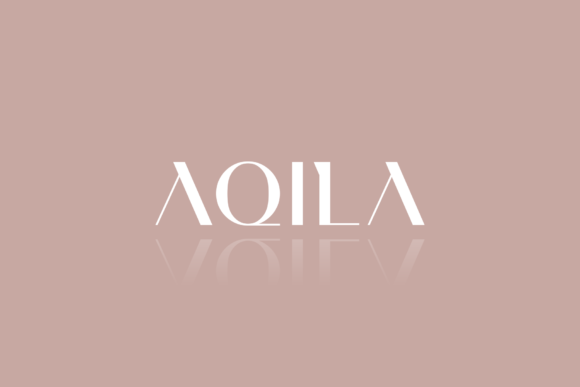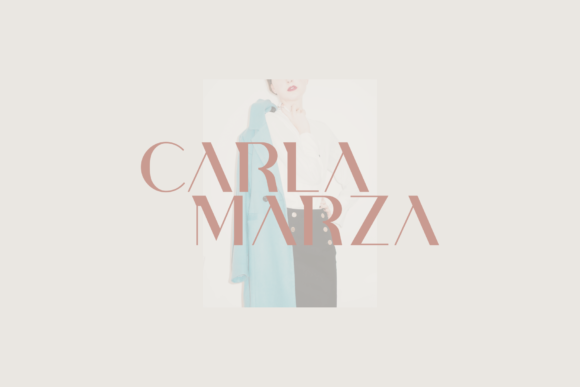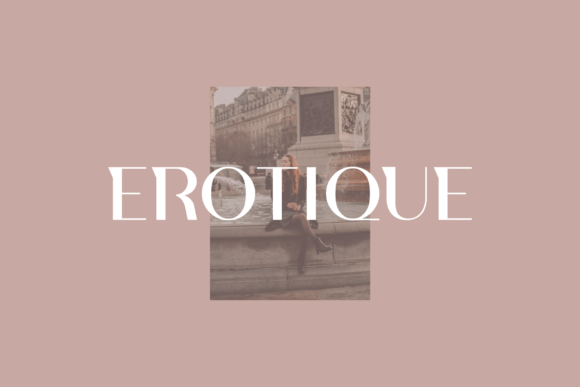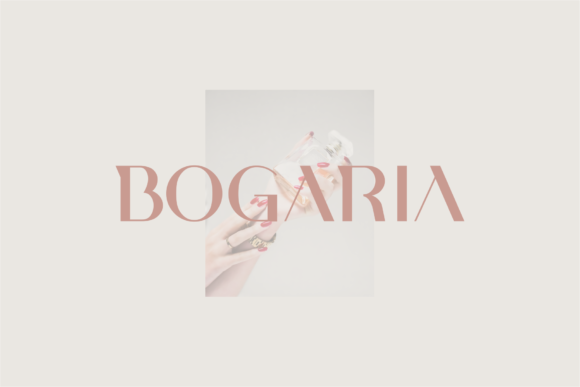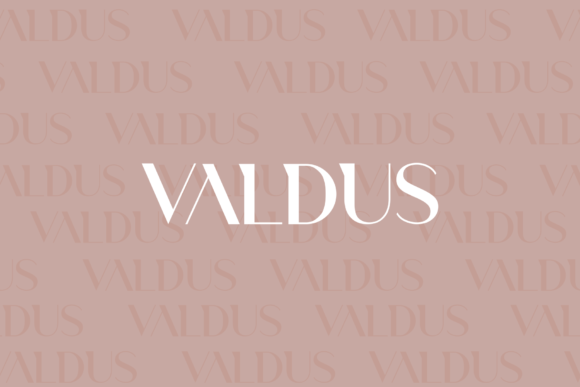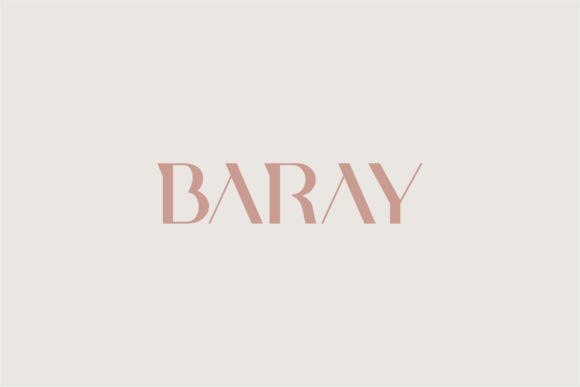
Introducing Agora Font: Elevate Your Designs with Elegance and Romance
In the world of typography, fonts play a crucial role in conveying the tone and aesthetic of a design. For those seeking to infuse their projects with a touch of elegance and romance, the Agora font is an exceptional choice. This versatile serif font is designed to cater to a wide range of applications, from the intimate pages of greeting cards to the impactful realm of headlines. In this article, we’ll delve into the characteristics of the Agora font, explore its uses, and understand why it has become a go-to for designers and crafters looking to add a sophisticated flair to their work.
The Essence of Agora Font
Agora is an elegant and distinct serif font that stands out for its refined and classic appearance. Its design is characterized by meticulous attention to detail, ensuring that each letterform exudes a sense of luxury and sophistication. The serifs are gracefully designed, adding a level of refinement that can elevate any text it’s applied to. Whether you’re working on a project that requires a subtle touch or a more pronounced typographic statement, Agora is versatile enough to meet your needs.
Applications of Agora Font
The versatility of Agora font is one of its most compelling attributes. Its range of applications is remarkably broad, making it an invaluable asset for designers and crafters. Here are some of the key areas where Agora truly shines:
• Greeting Cards: For those special occasions, Agora brings a touch of elegance and warmth. Its classic serifs and flowing lines make it perfect for wedding invitations, birthday cards, and holiday greetings.
• Headlines and Titles: In editorial design, advertising, and digital content, headlines are crucial. Agora’s distinctive serifs make it an excellent choice for titles, adding a level of sophistication and drawing the reader’s attention.
• Branding and Logotypes: For brands aiming to convey a sense of tradition, luxury, or romance, Agora can be a valuable typographic asset. Its unique character can help a brand stand out and communicate its values more effectively.
• Packaging: Product packaging often requires a font that is both eye-catching and classy. Agora’s elegant design makes it suitable for high-end product labels, book covers, and any packaging that needs to convey quality and sophistication.
Why Choose Agora Font?
Choosing a font for a project can be a daunting task, given the vast array of options available. However, Agora font offers several advantages that make it a preferred choice among designers:
• Romantic Appeal: Agora’s design inherently carries a romantic feel, making it ideal for projects that require a touch of elegance and warmth.
• Readability: Despite its elegant serifs, Agora maintains a high level of readability, making it suitable for both large headlines and smaller body text.
• Versatility: Its adaptability across various mediums and applications makes Agora a practical choice for designers who work on a wide range of projects.
• Timeless Design: The classic design of Agora ensures that it won’t go out of style quickly, providing a timeless quality to the projects it’s used in.
Agora font is a remarkable addition to the world of typography, offering a blend of elegance, versatility, and timeless appeal. Whether you’re a designer working on a high-end brand campaign, a crafter creating personalized greeting cards, or a digital content creator looking for the perfect headline font, Agora is sure to meet your needs. Its ability to add a romantic feel to any project makes it a valuable tool in the creative arsenal. By choosing Agora, you’re opting for a font that not only elevates the aesthetic of your work but also communicates a sense of sophistication and class.
Incorporating Agora into your design projects can make a significant difference in how your work is perceived. Its unique blend of classic elegance and modern versatility ensures that your designs will stand out in a crowded creative landscape. So, if you’re looking to infuse your next project with a touch of romance and sophistication, consider Agora font – a choice that promises to bring your creative visions to life in an elegant and impactful way.